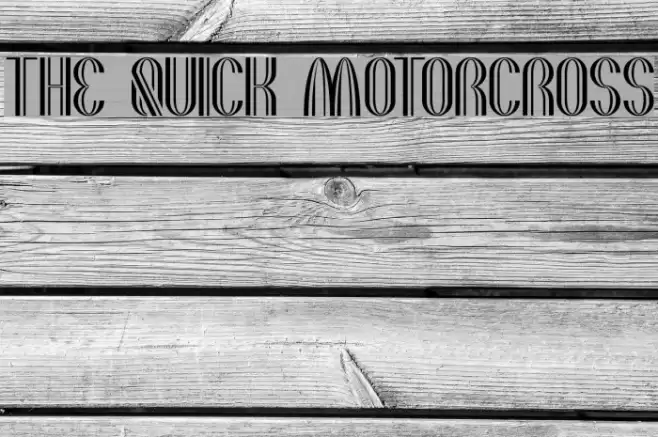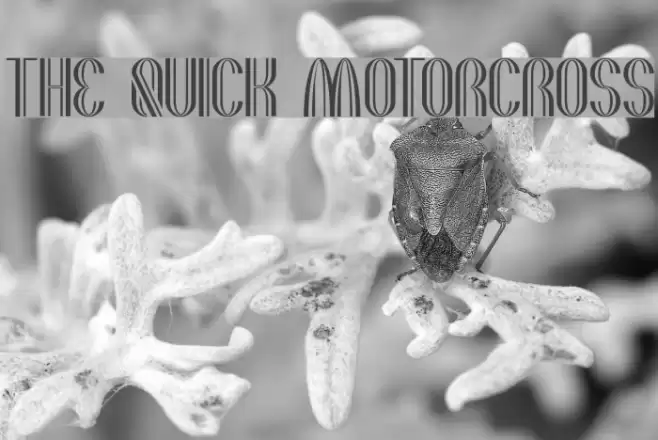
the quick motorcross Font
This font features a unique and bold design with a distinct Art Deco influence. The characters are composed of multiple parallel lines that create a sense of movement and rhythm. The uppercase letters have a geometric and symmetrical appearance, with some letters incorporating curves and angles that add to the decorative style. The font's intricate line work and structured form make it stand out, offering a modern twist on classic design elements. It is ideal for projects that require a strong visual impact and a touch of elegance.
A bold, Art Deco-inspired font with geometric and decorative elements from Fancy fonts.